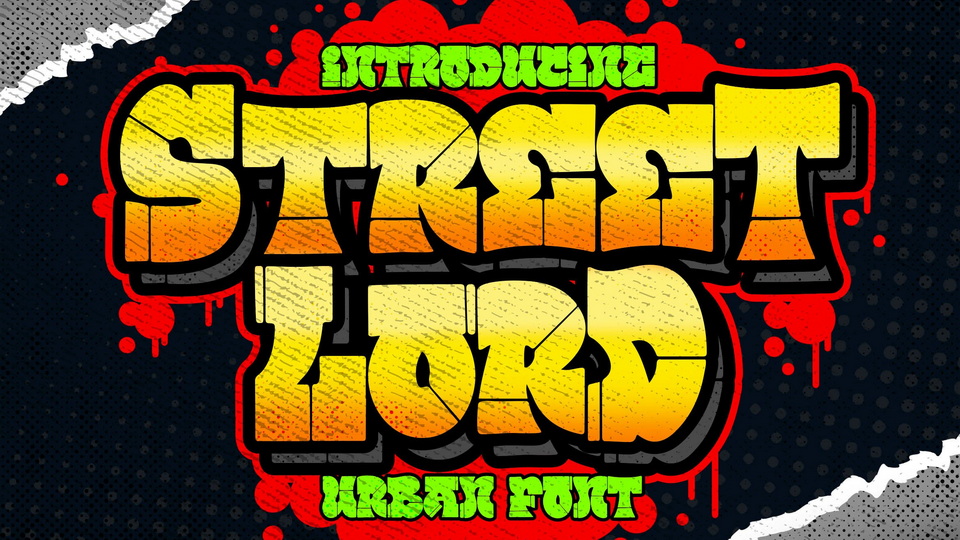
Download Street Lord font, a display typeface inspired by graffiti style with a fun and cool look. Street Lord is very good for graffiti, poster, Hip Hop music album, kids poster, flyer, children book, cartoon, comics, etc.
Designer: Blankids Studio